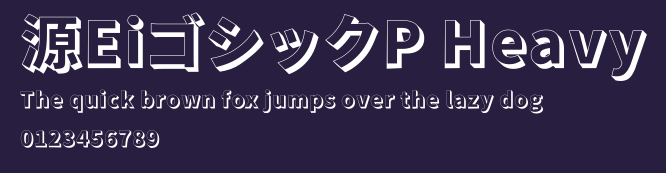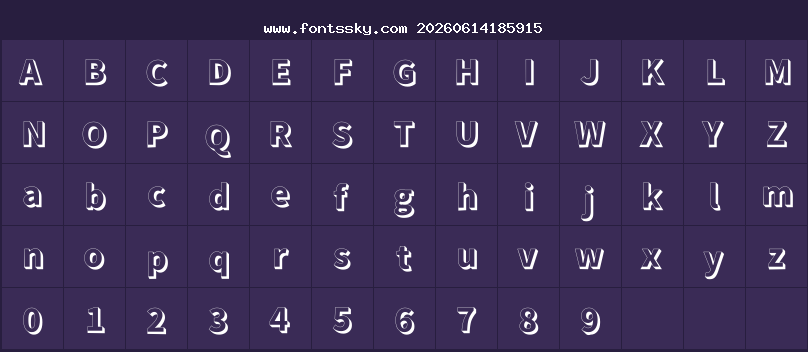
源EiゴシックP Heavy.ttf is a modern, elegant sans-serif font designed for ultimate readability and visual harmony. Perfect for branding, headlines, web design, and print materials.